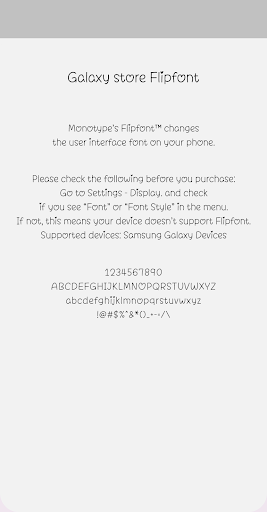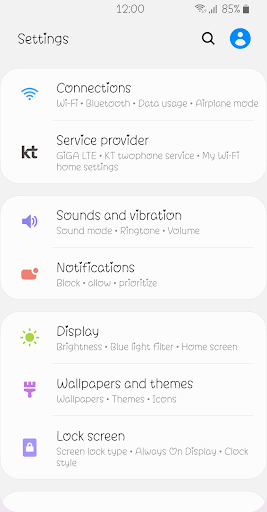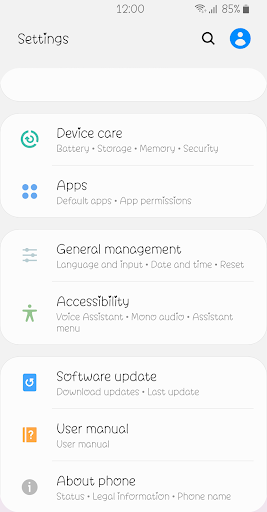
Nm HowSweet
Nm HowSweet is a lovely and cute font and has good readability. Customize your phone with this. Please try this font and leave your feedback.